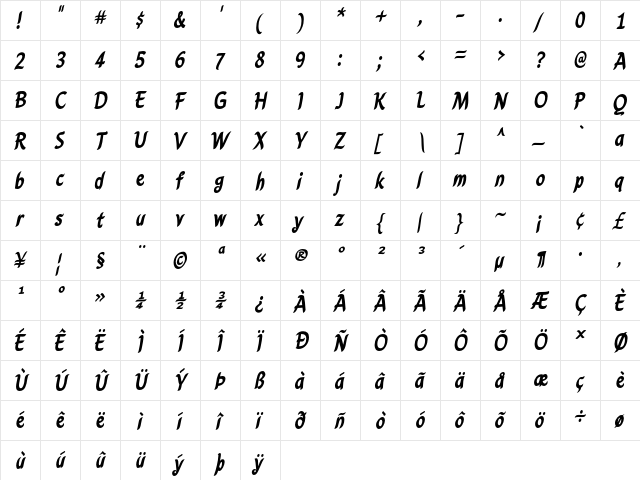
Caryn Bold
Design Context for Caryn Typeface
Caryn is a composed and adaptable typeface that performs quietly and consistently across a wide range of design contexts. The heavy weight commands attention and anchors typographic hierarchies.